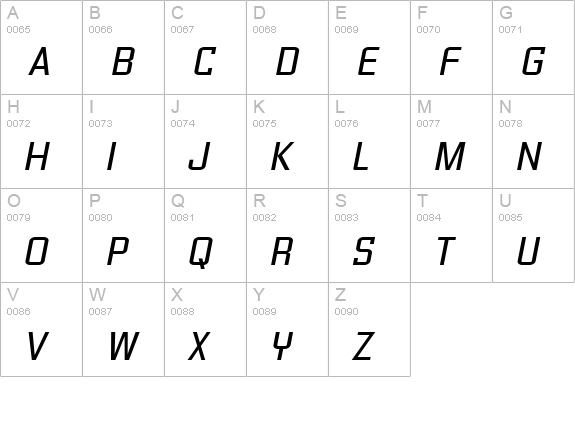
Gasoline Sans BTN Oblique Font Details
Gasoline Sans BTN Oblique is a distinctive, italic variant in the Gasoline typeface family \xE2\x80\x94 well suited to design and typography projects.
Gasoline Sans BTN Oblique is a sleek and modern font that exudes elegance and sophistication. With its slanted and stylish design, this typeface adds a touch of flair to any project or design. The italicized letters create a sense of movement and dynamism, making it perfect for adding emphasis or creating a sense of urgency. This font is perfect for use in branding, advertising, headlines, and any design project that requires a touch of sophistication. Its clean lines and unique style make it a versatile choice for a wide range of applications. Best of all, Gasoline Sans BTN Oblique is available for free download at FontsMarket.com. So why wait? Add this stunning font to your collection today and elevate your designs to the next level!